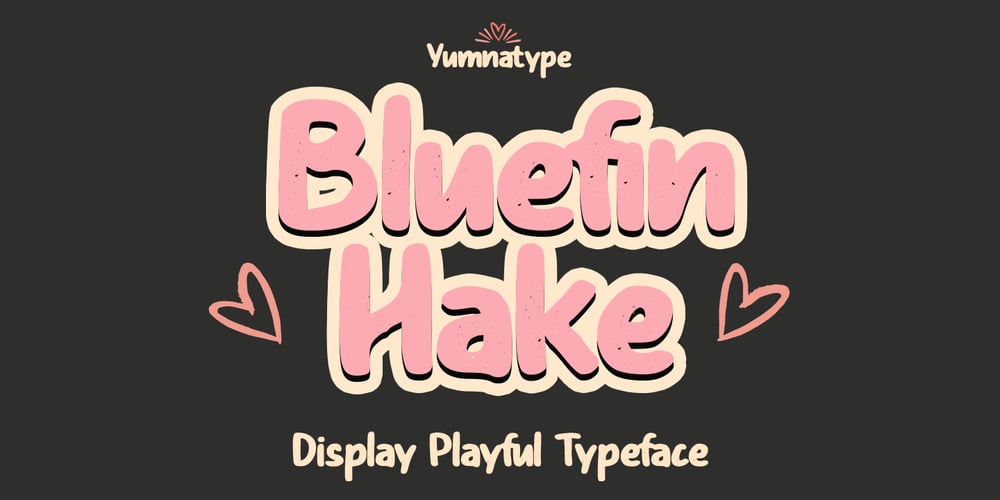
Bluefin Hake Font Family was designed by Donis Miftahudin and published by Yumna Type. Bluefin Hake contains 1 styles and family package options. Bluefin Hake is a captivating display font that brings a sense of playfulness and creativity to your designs. With its charming style and unique design, this font is perfect for projects that demand attention and personality. Each letter in Bluefin Hake is crafted with bold strokes and playful shapes, exuding a sense of energy and fun. The bold weight of the font adds to its strong and confident presence, while the low contrast ensures clarity and legibility in any size. What sets Bluefin Hake apart is its subtle grunge details, which add a touch of texture and character to the font. In addition, enjoy the features here.Features: Ligatures Multilingual Supports PUA Encoded Numerals and Punctuations Bluefin Hake fits in headlines, logos, posters, flyers, branding materials, print media, editorial layouts, and many more designs. Find out more ways to use this font by taking a look at the font preview.Thanks for purchasing our fonts. Hopefully, you have a great time using our font. Feel free to contact us anytime for further information or when you have trouble with the font. Thanks a lot and happy designing.